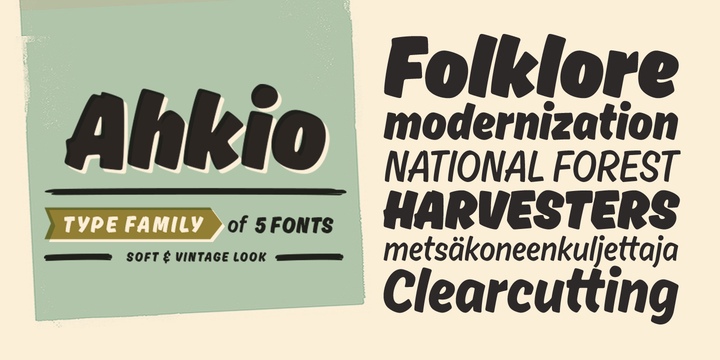
Ahkio Font
Ahkio Font is perfect for Nordic-inspired lifestyle brands, Scandinavian furniture company logos, minimalist architecture firm branding, winter sports equipment packaging, outdoor adventure gear graphics, sustainable design consultancies, eco-friendly product labels, clean energy company materials, wellness retreat signage, and contemporary hygge-themed businesses. This refined typeface excels in applications where Nordic simplicity, natural harmony, and sustainable living are central brand messaging elements.
What makes Ahkio Font exciting is its embodiment of Scandinavian design philosophy through clean, purposeful letterforms that capture the essence of Nordic functionality and aesthetic restraint. The font features precisely balanced character construction with subtle organic influences that reflect the connection between human design and natural environments. Its understated elegance and systematic clarity make it perfect for brands that embrace sustainability, mindful consumption, and the Nordic approach to balanced living that prioritizes quality over quantity.
The Ahkio Font family typically includes multiple weights from Light to Bold, often featuring condensed variations that maximize design efficiency while maintaining the clean aesthetic principles of Nordic design. Many versions include extended character sets with Scandinavian language support, environmental symbols, and minimalist punctuation marks that reflect contemporary sustainable design values. Some collections feature alternate characters with enhanced geometric properties and decorative elements inspired by Nordic nature and traditional craftsmanship patterns.
Whether you're developing brand identities for sustainable lifestyle companies, creating materials for environmentally conscious organizations, or designing content that celebrates Nordic living principles and natural harmony, Ahkio Font Free Download provides the authentic Scandinavian character that resonates with audiences who value simplicity, sustainability, and mindful design. Its purposeful presence makes it ideal for brands focused on environmental responsibility and conscious consumption. The font's ability to convey both modern sophistication and natural authenticity makes it particularly valuable for companies in sustainable design, outdoor recreation, and wellness industries seeking to communicate their commitment to environmental stewardship and quality craftsmanship through clean, honest visual communication.